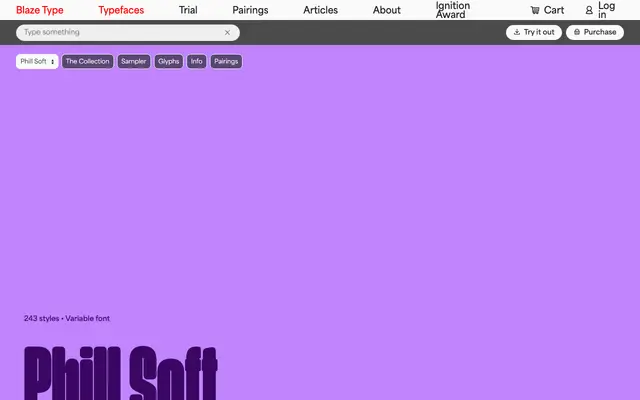
Phill Soft
A 243-style geometric sans spanning nine widths from Compressed to Wide, each with nine weights and upright, slanted and backslanted cuts, available as a variable font.
Phill Soft covers an unusually broad width range, running from Compressed through to Wide across nine discrete families, each offering nine weights from Thin to Black. Each weight comes in three inclinations: upright, Slant and Backslanted, giving designers fine control over emphasis and rhythm. The variable font format makes the full span of width and weight axes accessible without managing hundreds of static files.
A geometric sans-serif with softened terminals and rounded details, offered across nine width variants from Compressed to Wide, suggesting a contemporary geometric humanist character without serifs.